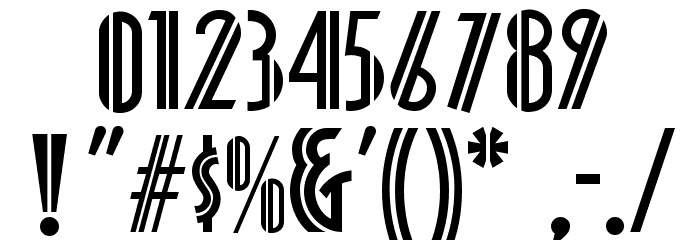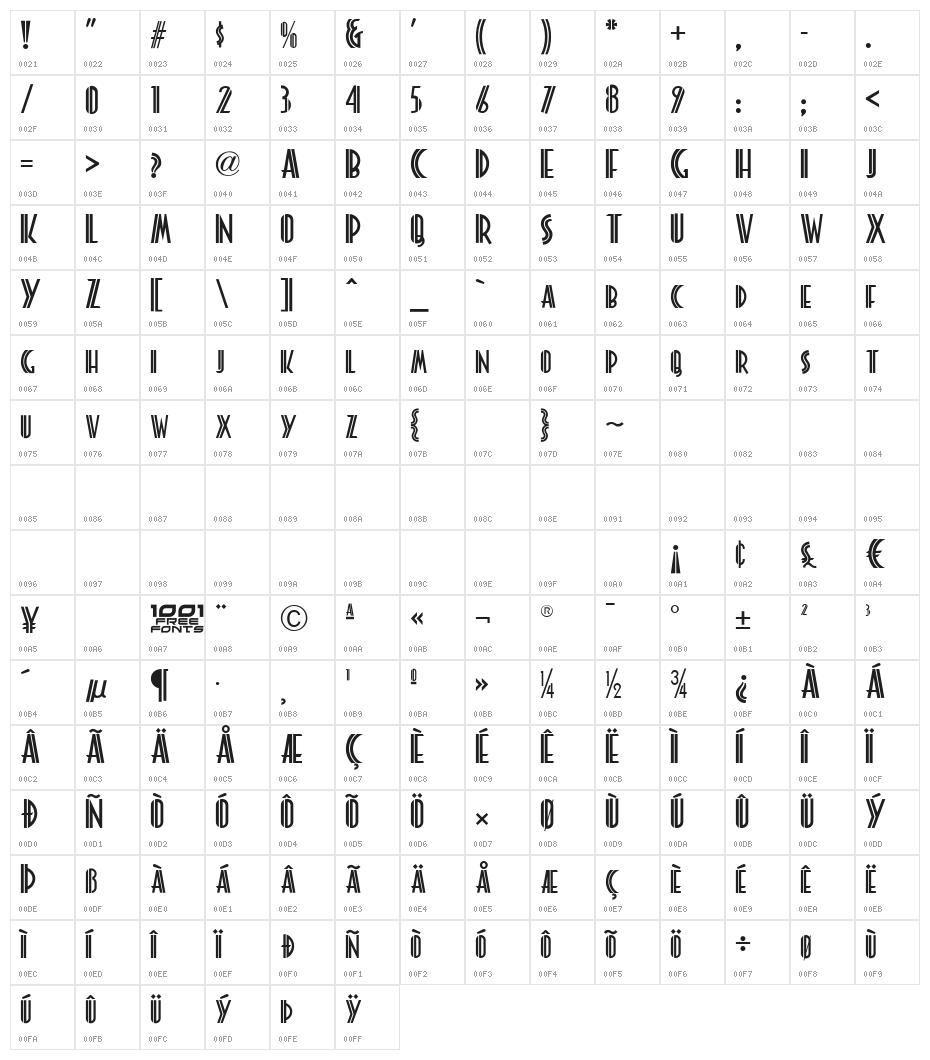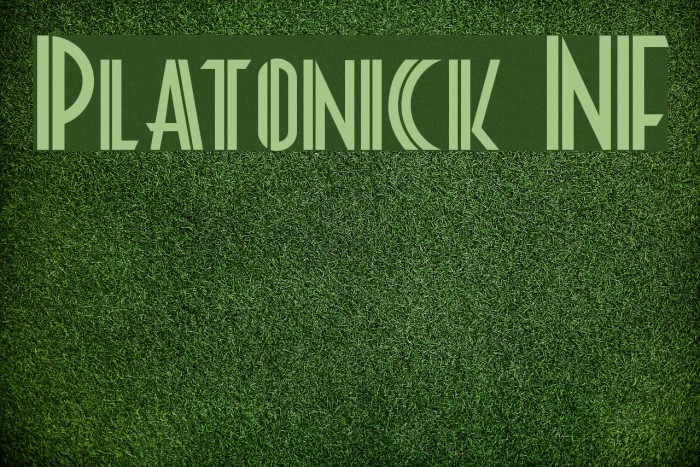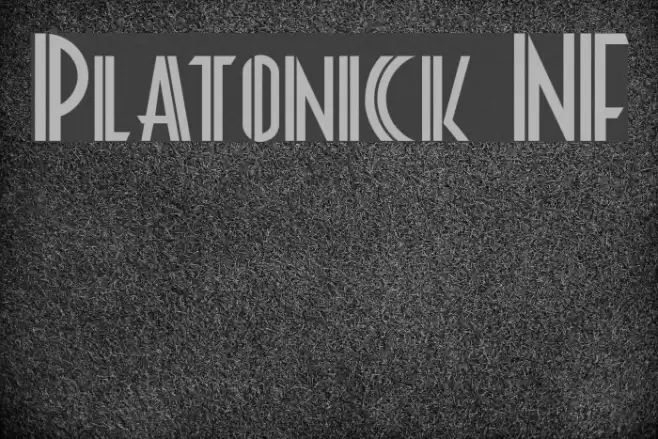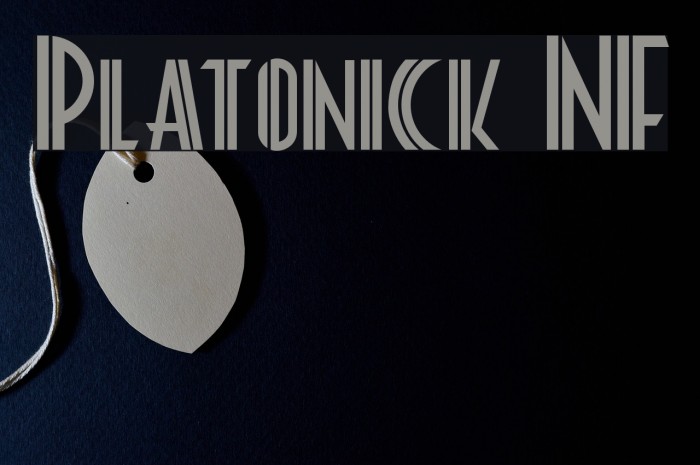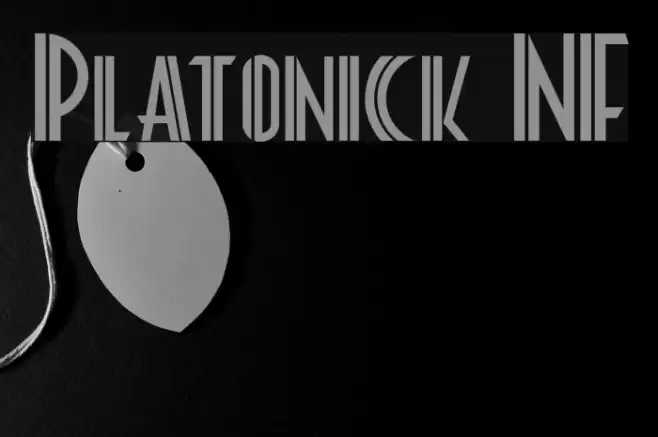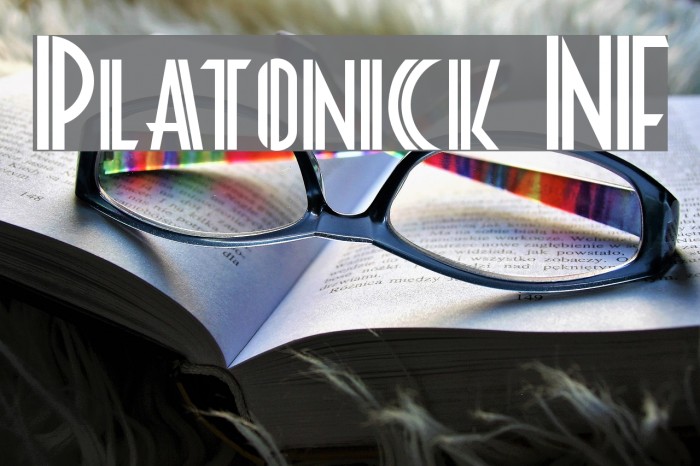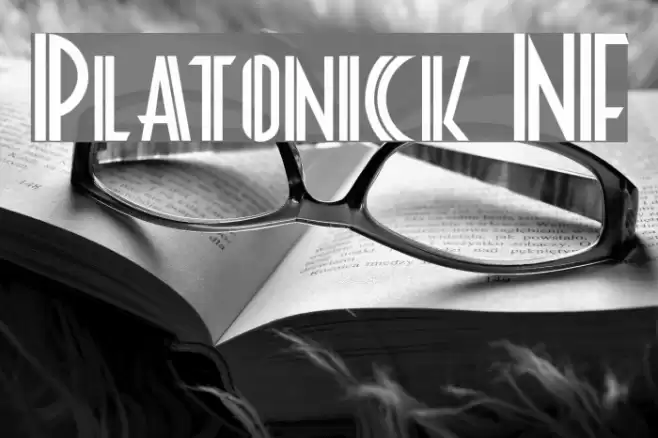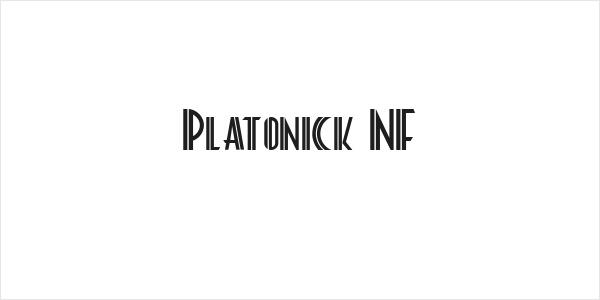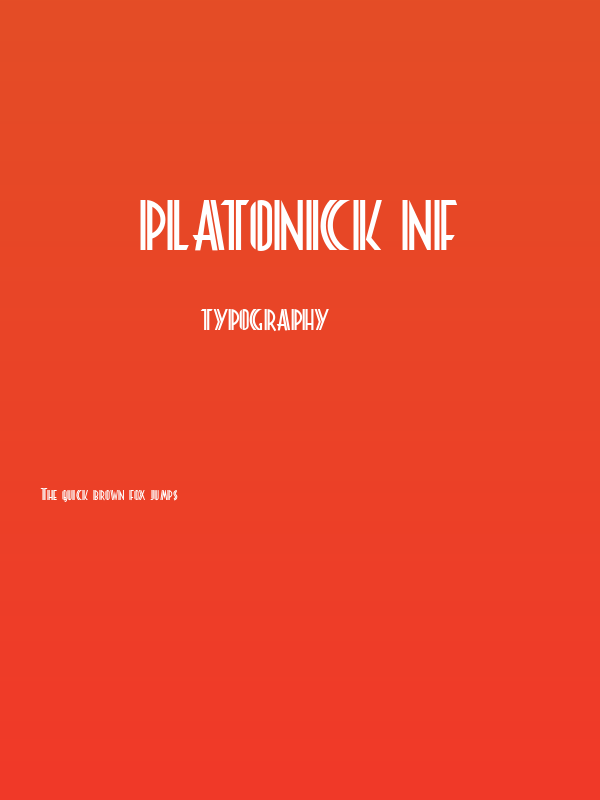
Platonick NF Font
Platonick NF Description
This font features a bold and geometric design with a strong Art Deco influence. The characters are constructed with sharp angles and clean lines, creating a sense of movement and dynamism. The uppercase letters are particularly striking, with a unique interplay of thick and thin strokes that add to the font's visual interest. The numerals and special characters maintain this aesthetic, ensuring consistency across all glyphs. This font is ideal for projects that require a touch of vintage elegance combined with modern flair.
| Overall Style | Vintage, Modern |
| Proposed Projects | Ideal for branding, poster design, and any project seeking a vintage yet modern aesthetic. |